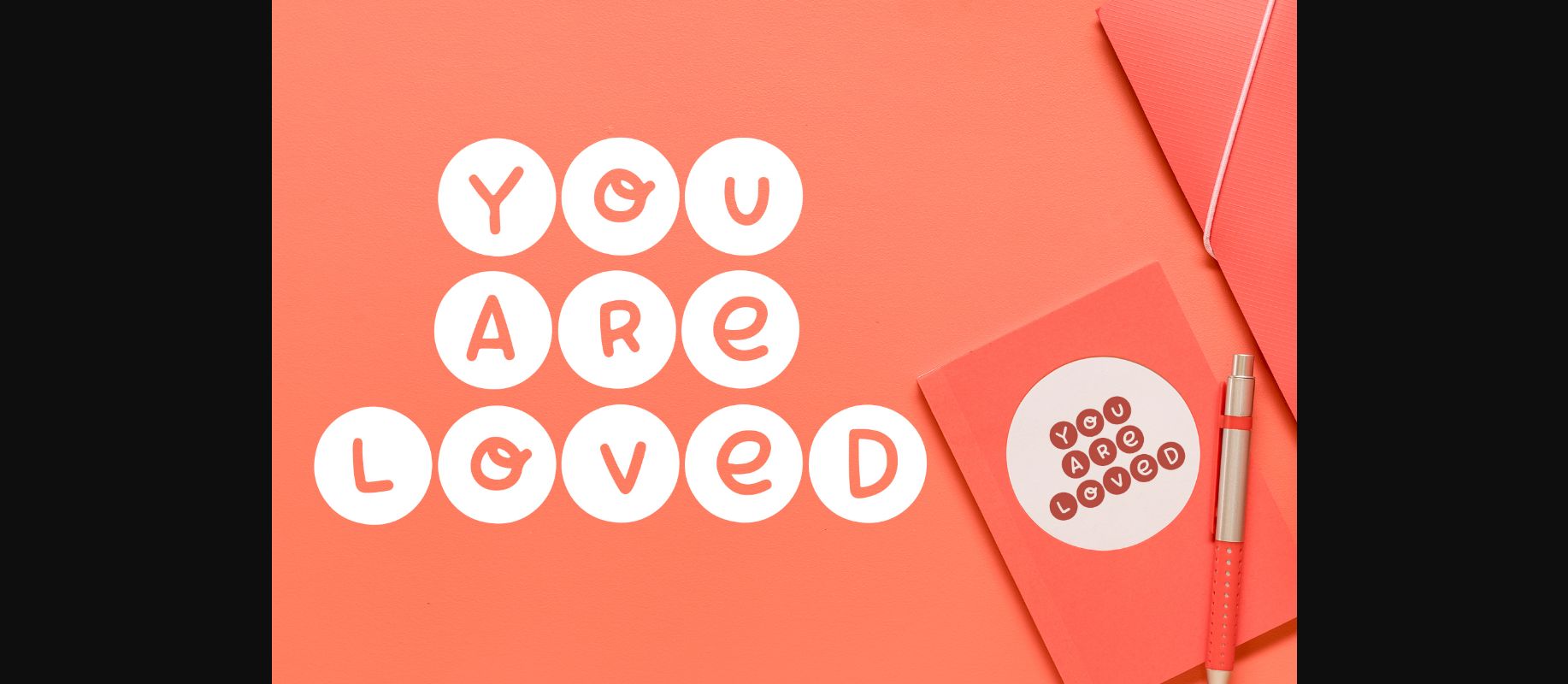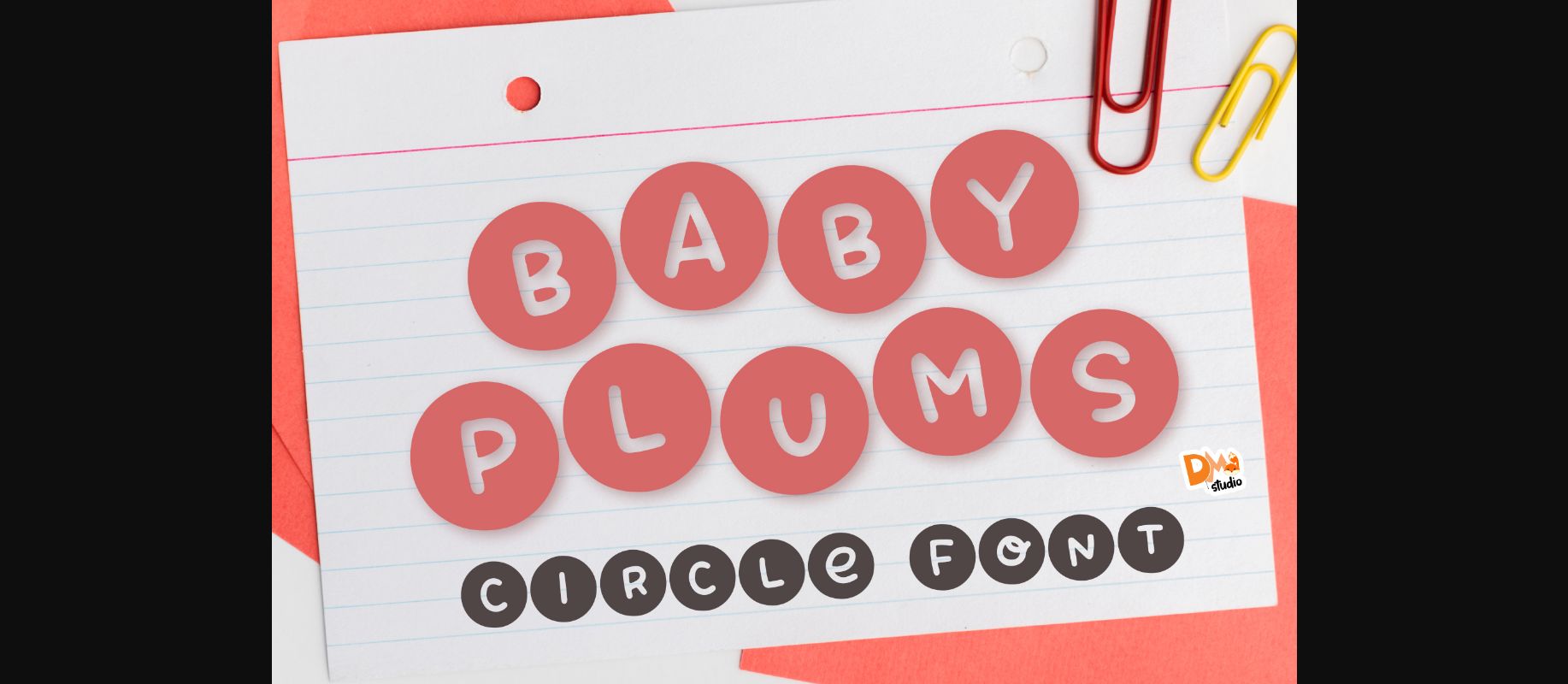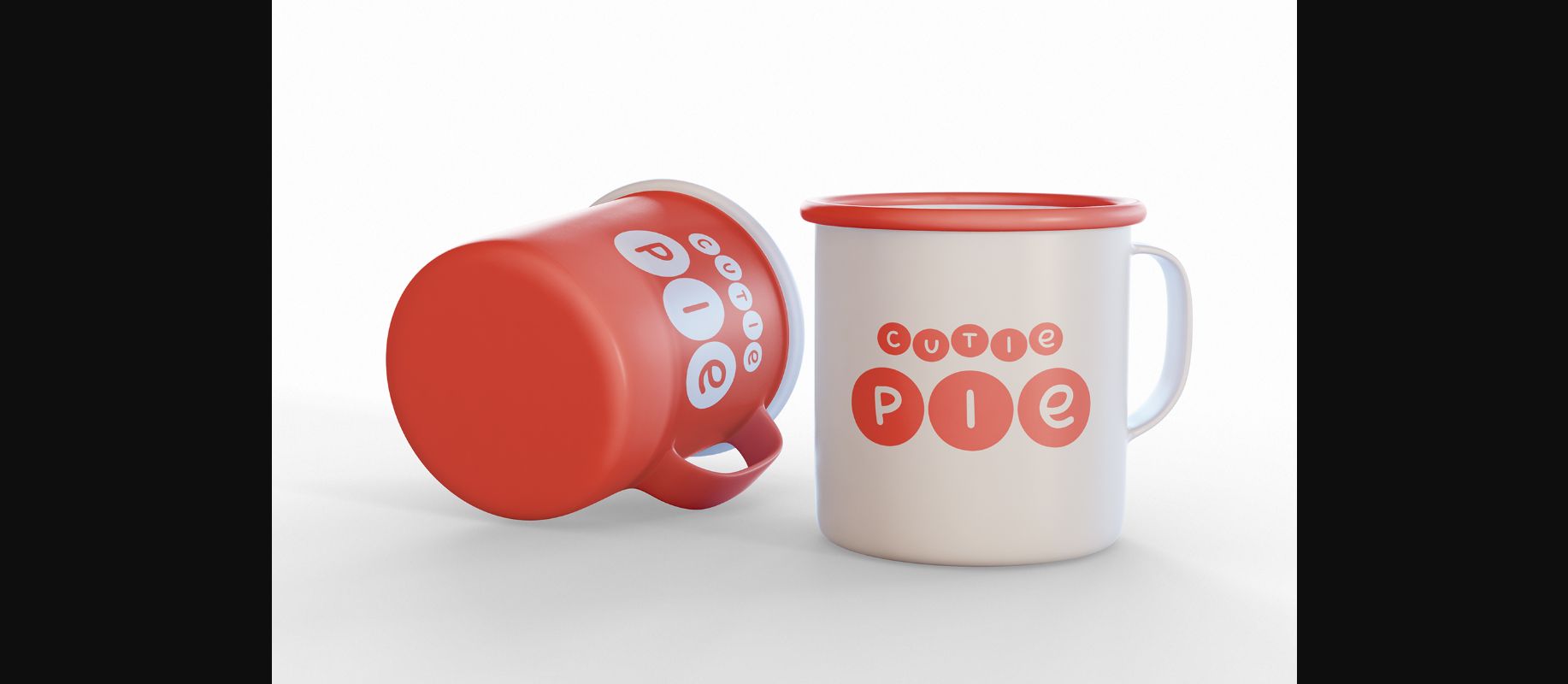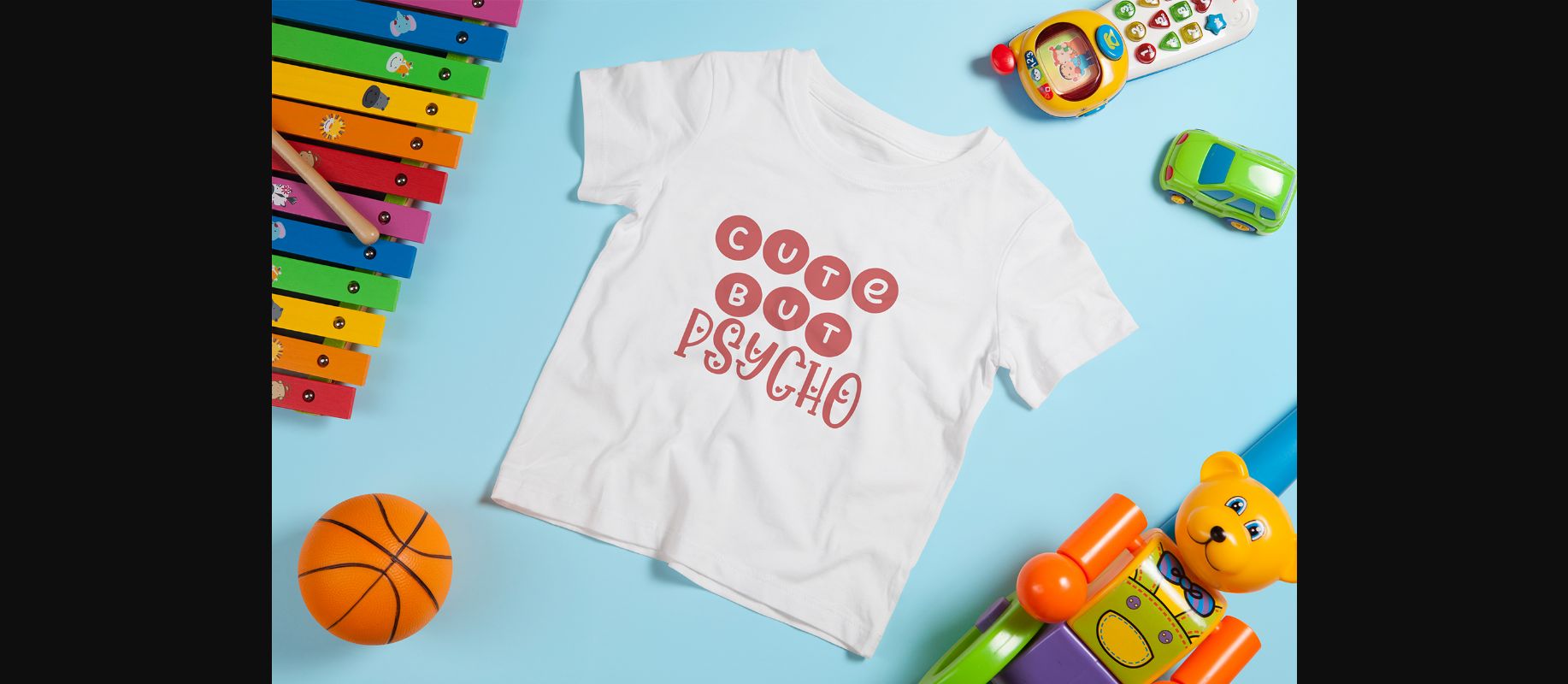
About Baby Plums Font
Baby Plums is a cute decorative font. It will work great for your DIY crafts, name crafting, labels, logos, brands, quotes, social media posts, sticker, and so much more!